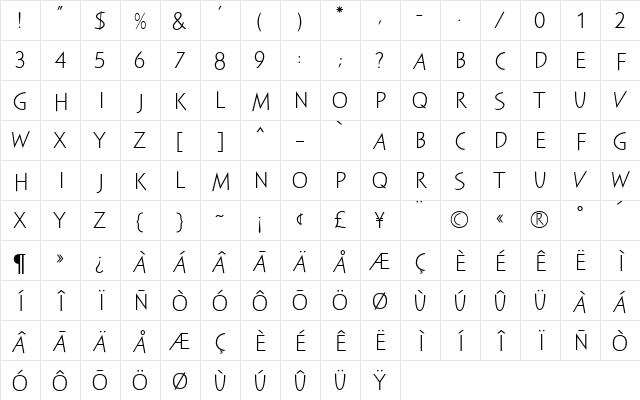
Sayer Spiritual MN Regular
Design Context for Sayer Spiritual MN Typeface
Sayer Spiritual MN is a composed and adaptable typeface that performs quietly and consistently across a wide range of design contexts.